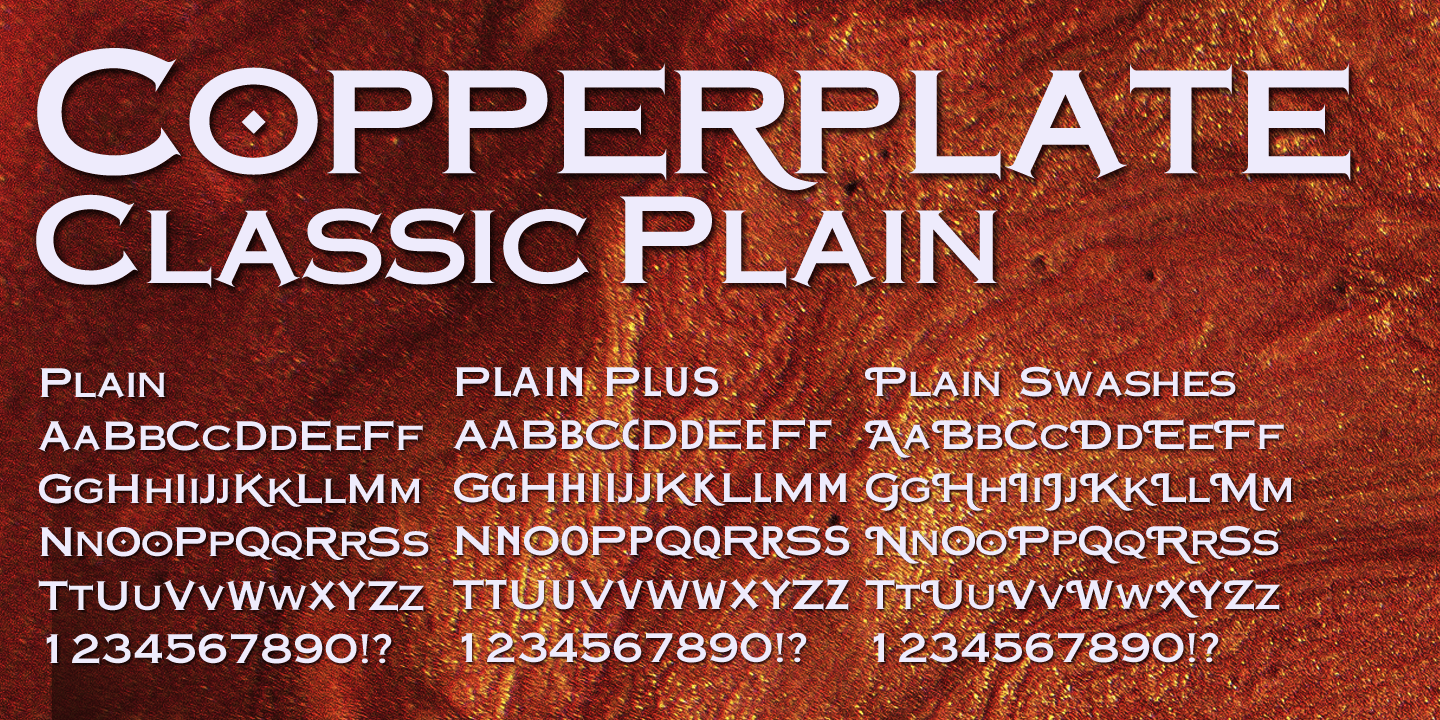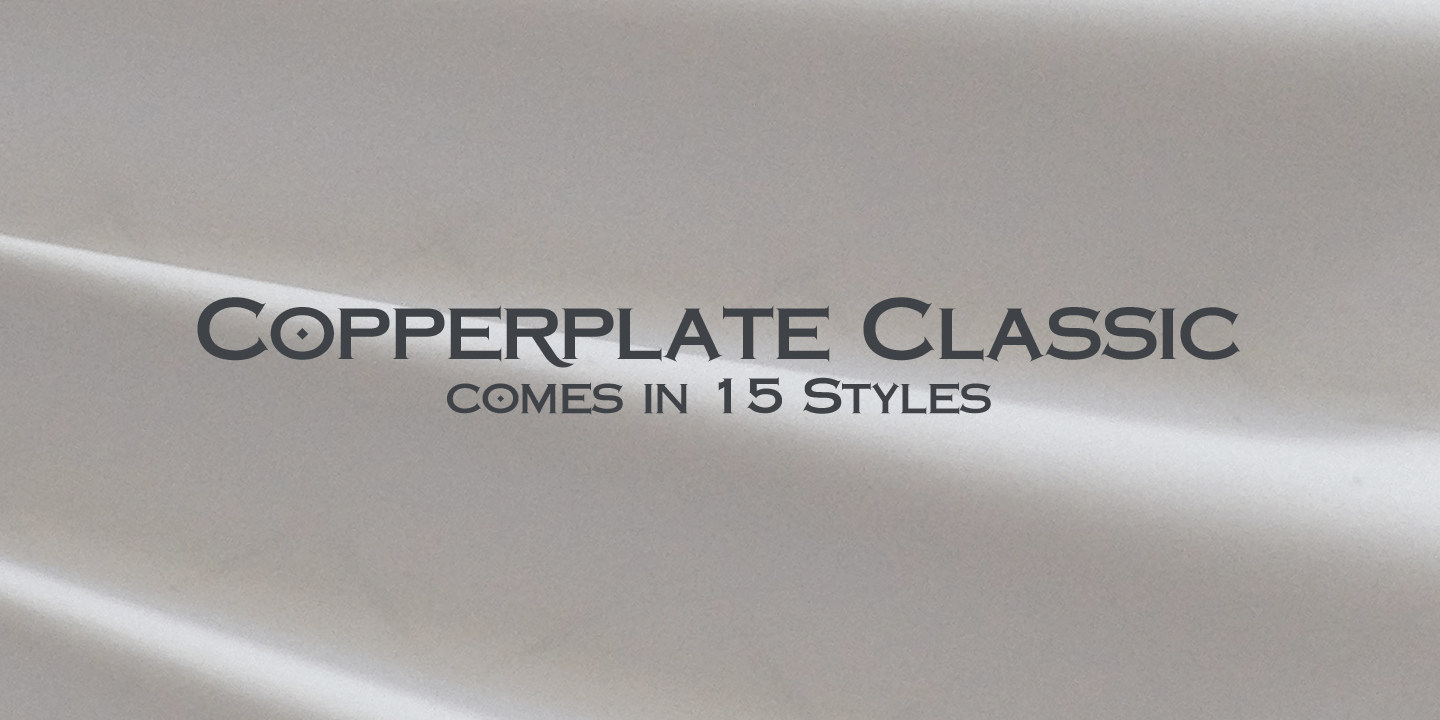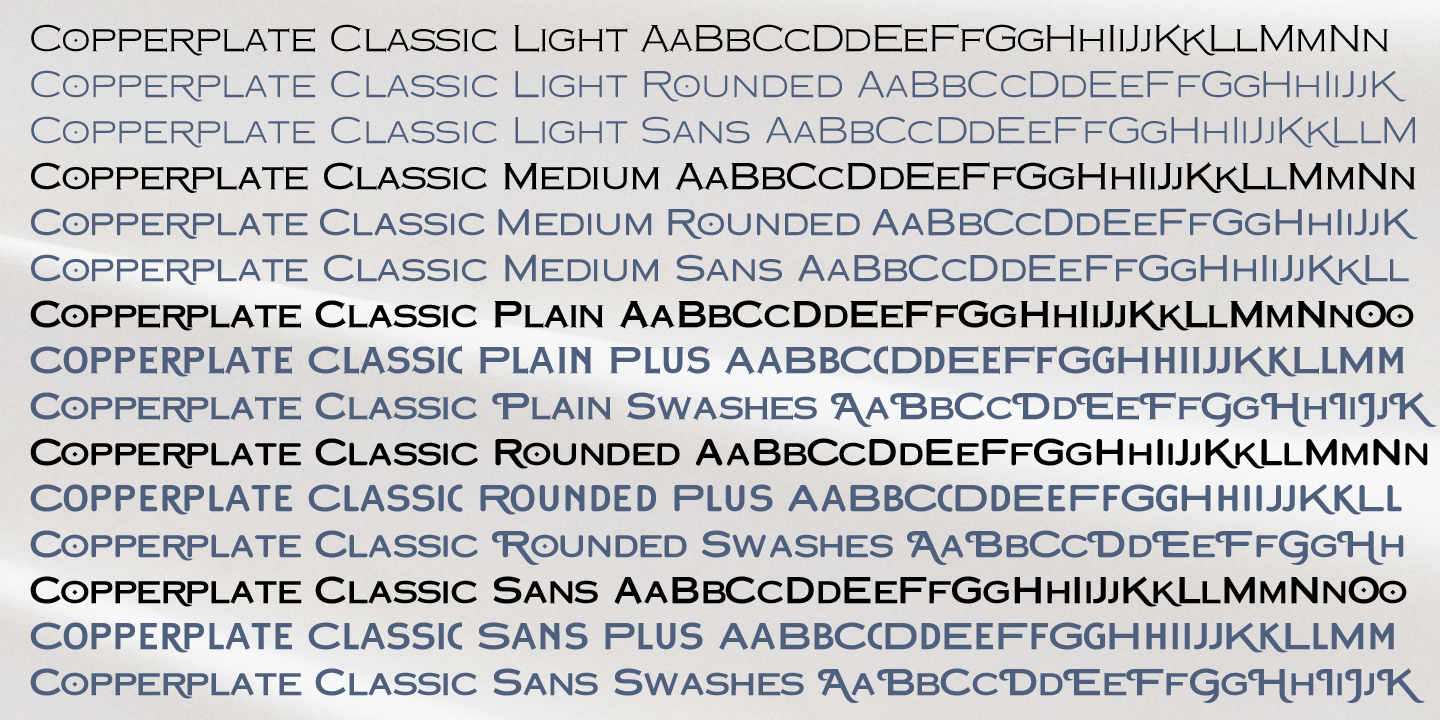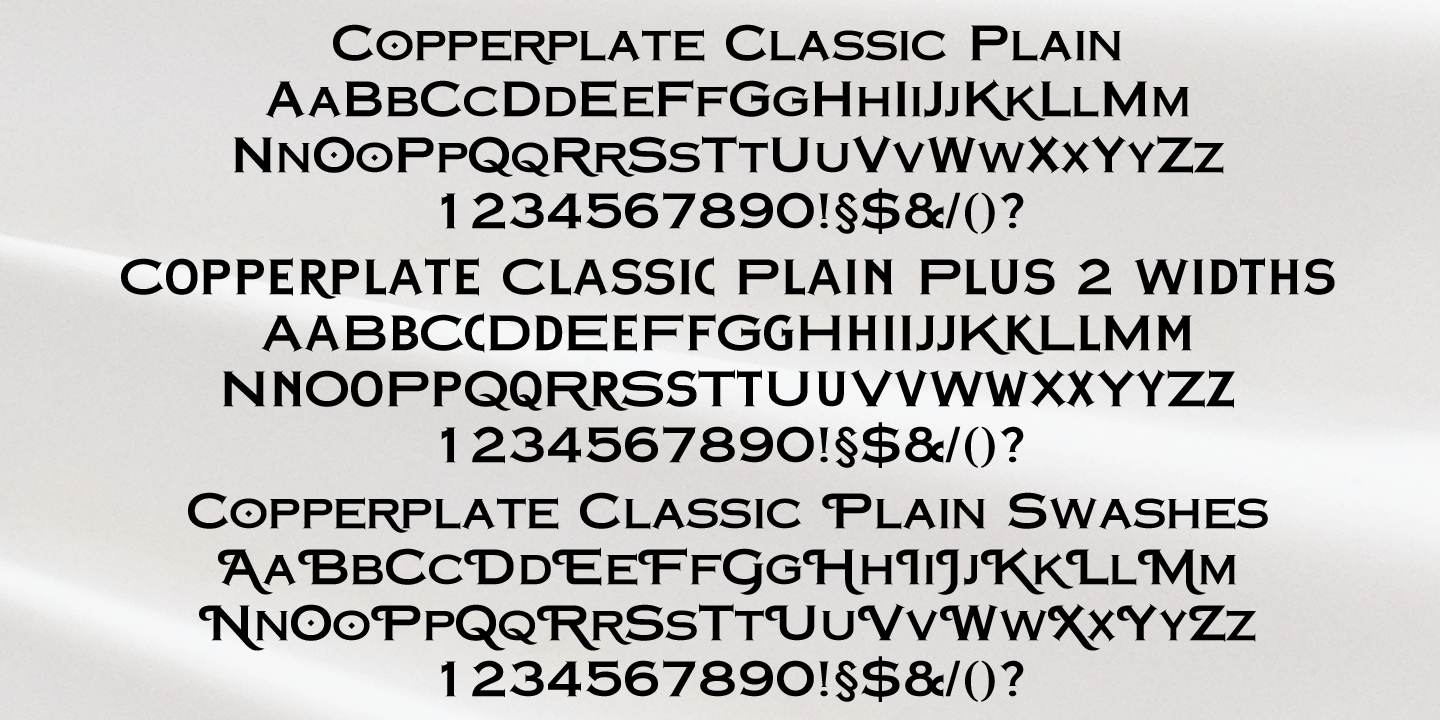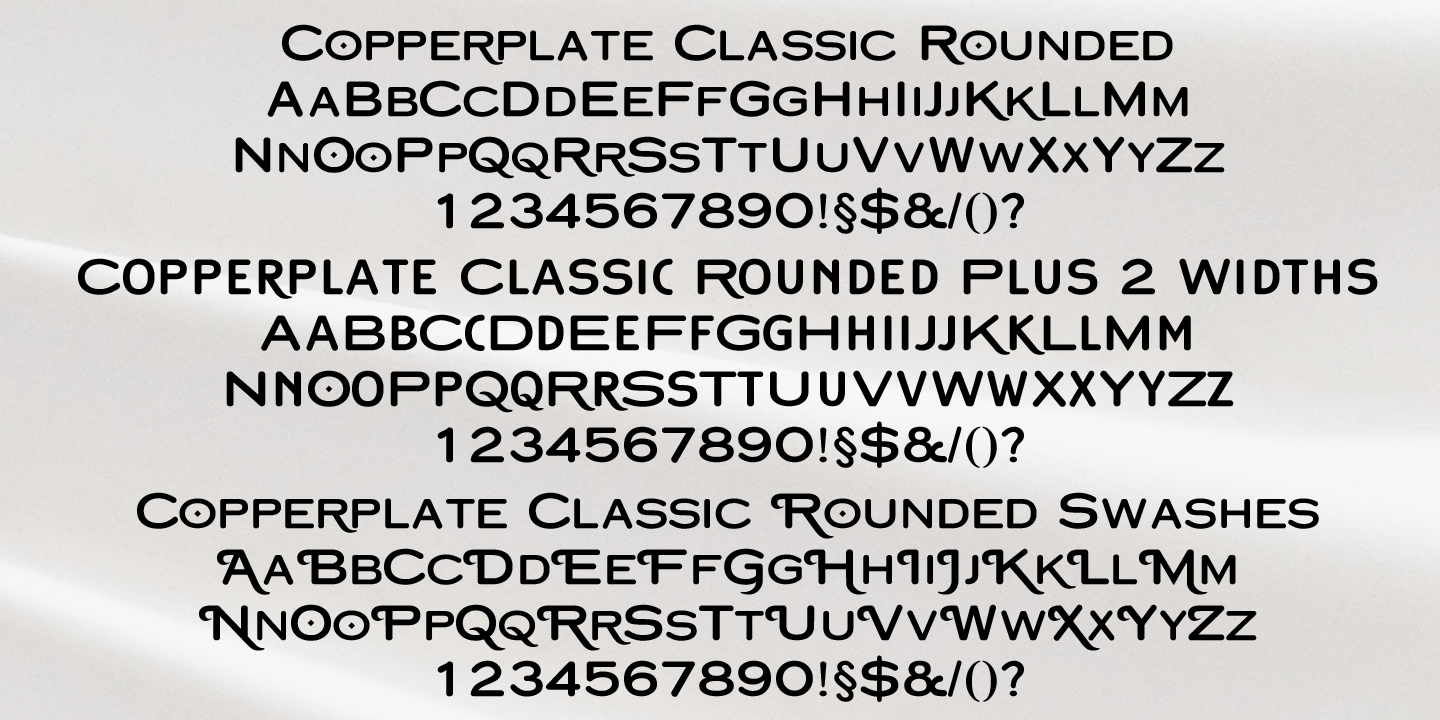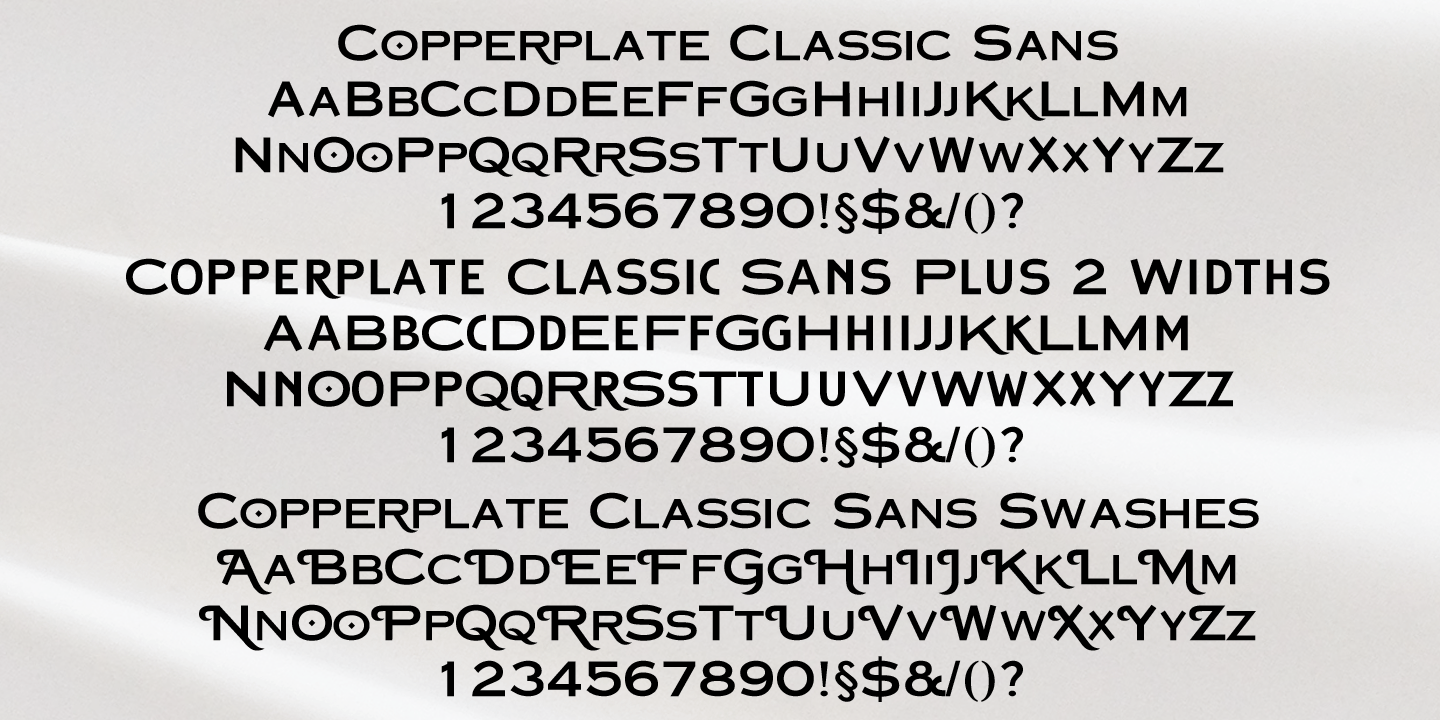
Copperplate Classic
Font Family by Wiescher Design
Copperplate was the classic nineteenth century engravers typeface, consisting of capitals and small caps only. Among others (for example Deberny & Peignot) F. W. Goudy's cut for ATF around 1901 is probably the most widely known.
Copperplate typefaces are traditionally used for business cards and all that serious stuff. My Copperplate Classic is a completely new design, based on some old samples. To make it look more up-to-date and elegant, I gave it some extra swings here and there. The old fonts were all designed with clogging corners or ?points that can break off? in the minds of its designers. Today we do not have those problems any longer, so I could give my Copperplate Classic real sharp pointed serifs. For variation I designed a sister that has swashes on the capitals. And to round things off, I designed a third set of capitals only (wide ones on the shift and narrow ones on the lowercase). I ended up with 3 sets of 3 - Serif, Sans and Round - all in the same weight!